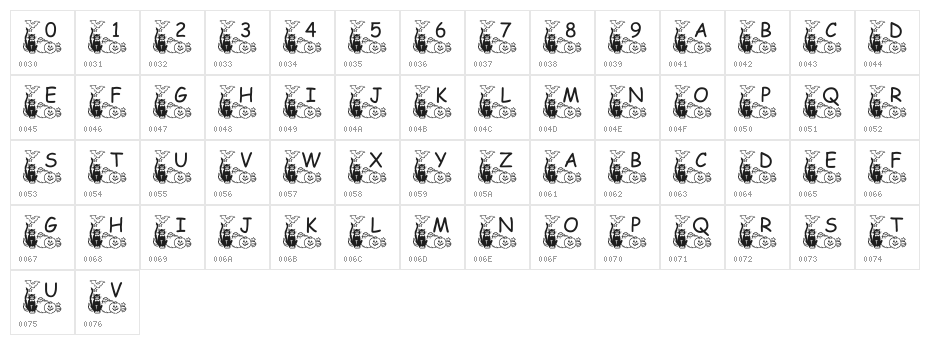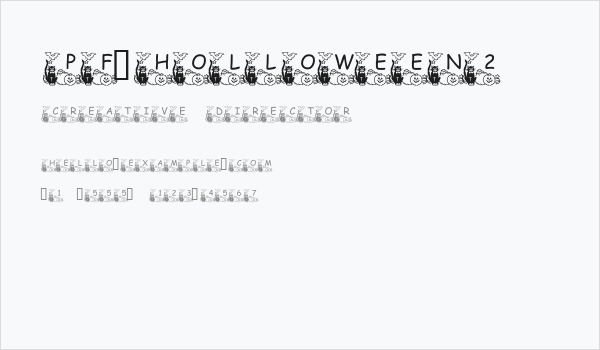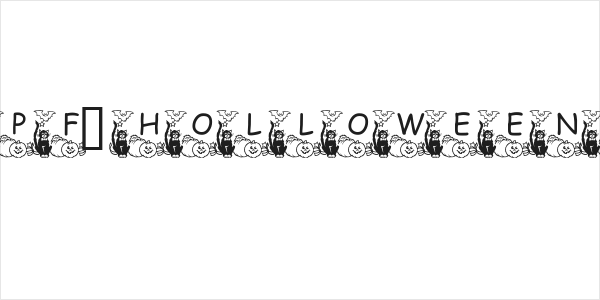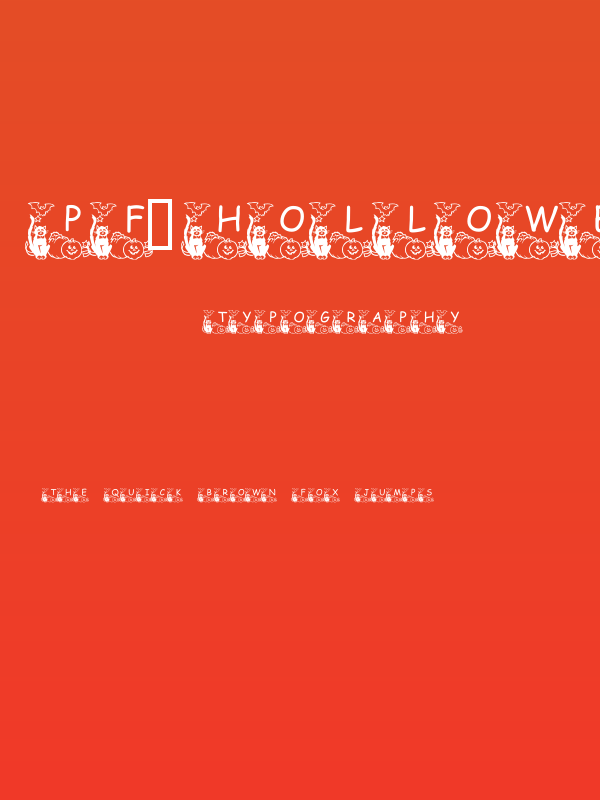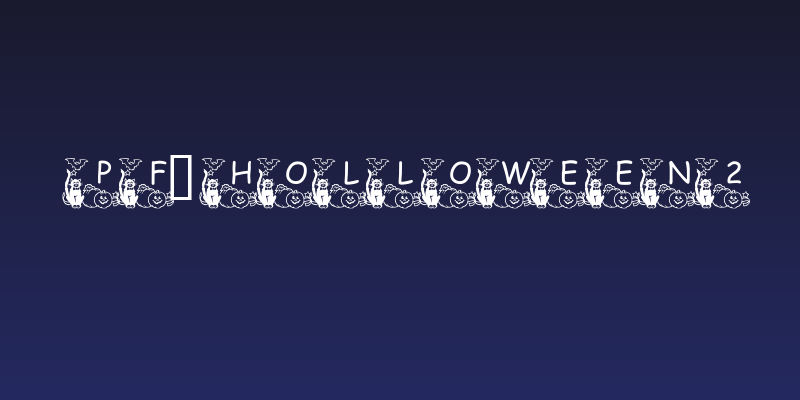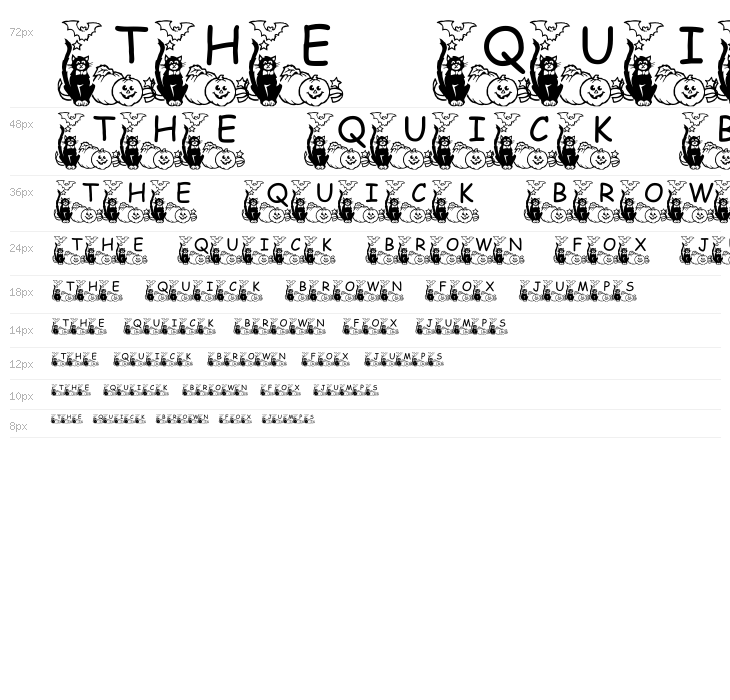
pf_holloween2 Font
pf_holloween2 Description
This font features a playful and spooky Halloween theme, incorporating whimsical elements such as black cats and pumpkins integrated into the design of each character. The letters are bold and cartoonish, with a hand-drawn style that adds to the festive and eerie atmosphere. The characters are surrounded by decorative Halloween motifs, making it ideal for seasonal projects. The font maintains a consistent style across uppercase, lowercase, and numerical characters, ensuring a cohesive look.
| Proposed Projects | Ideal for Halloween invitations, party decorations, themed posters, and children's books. |